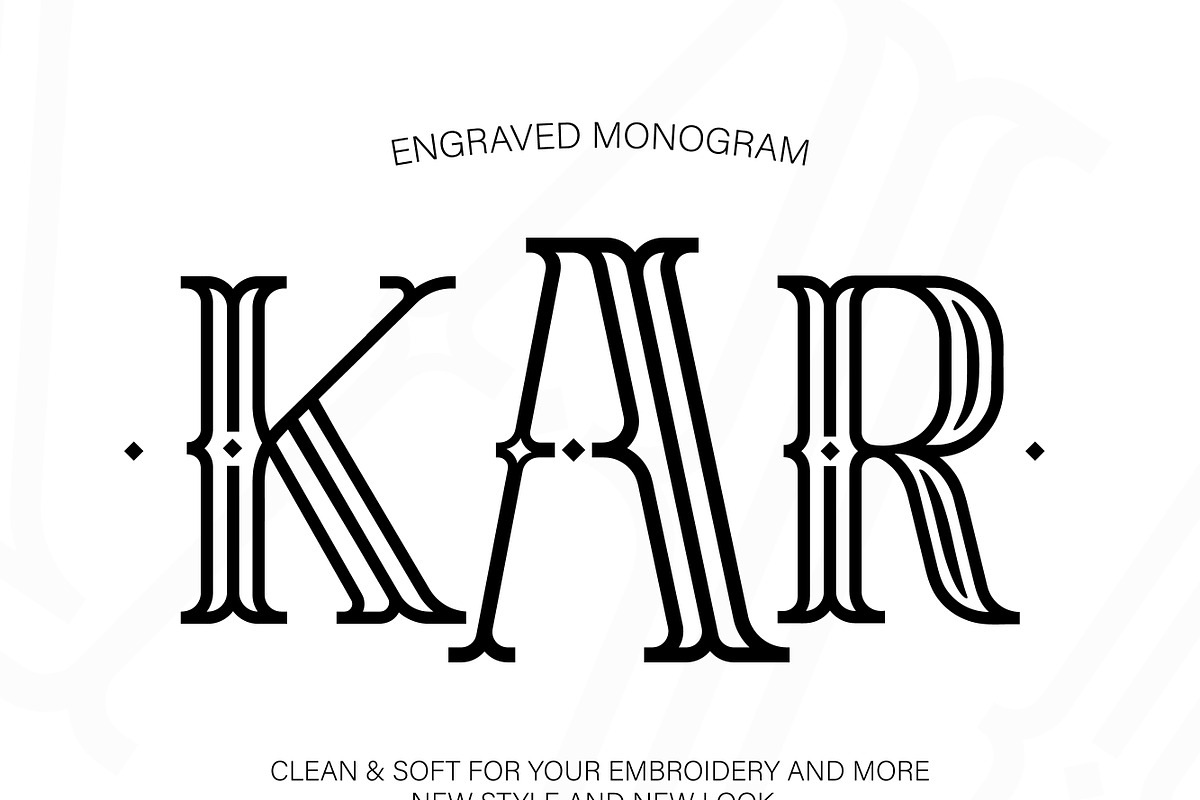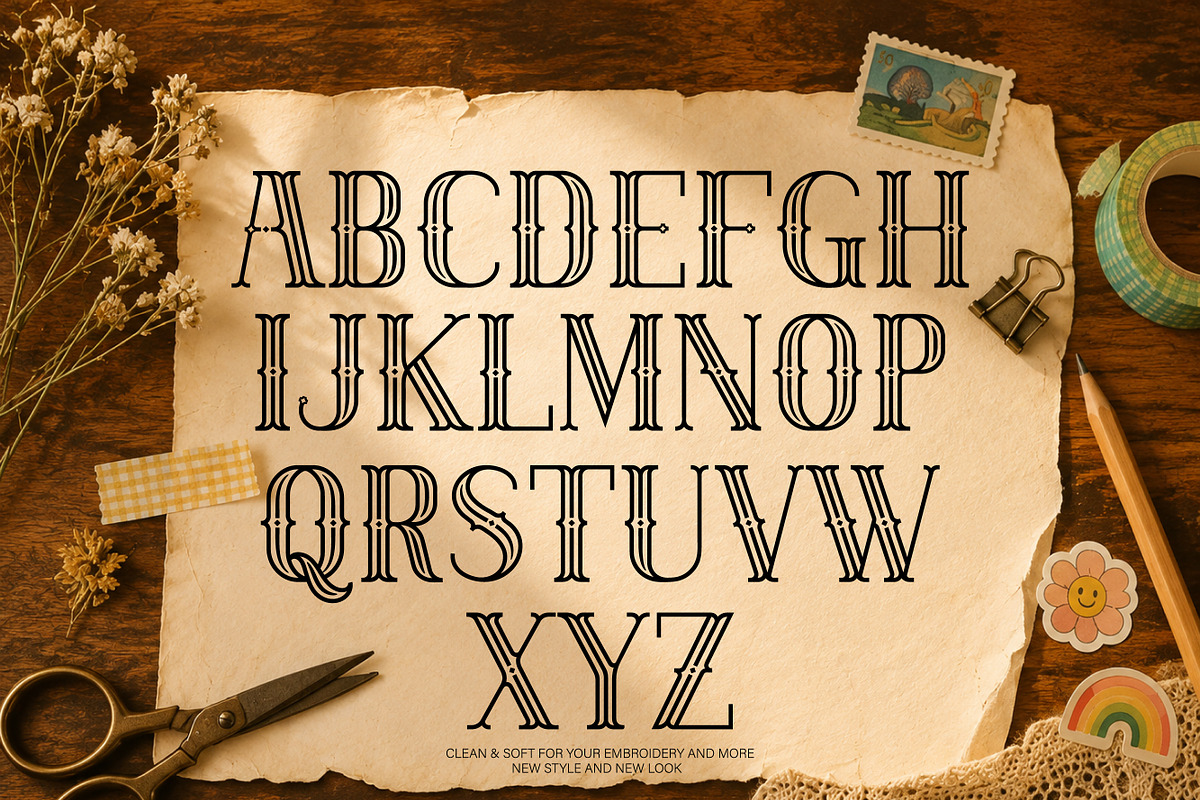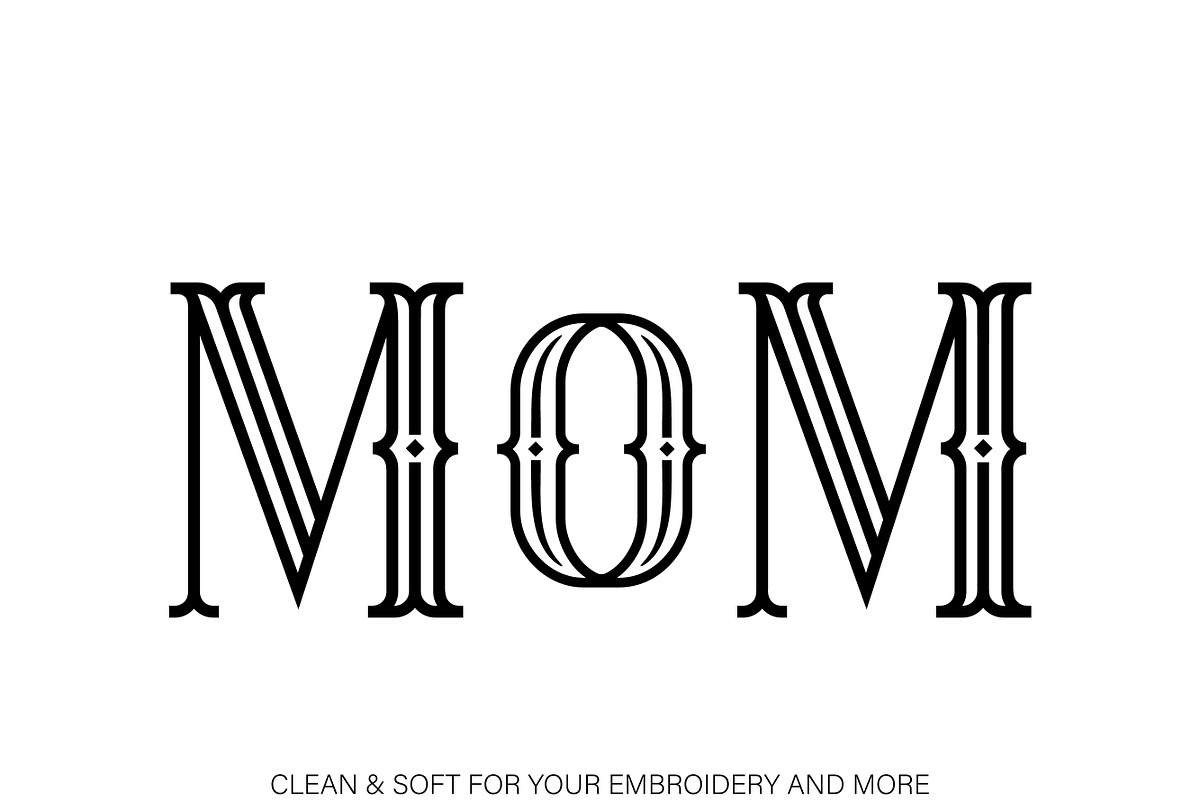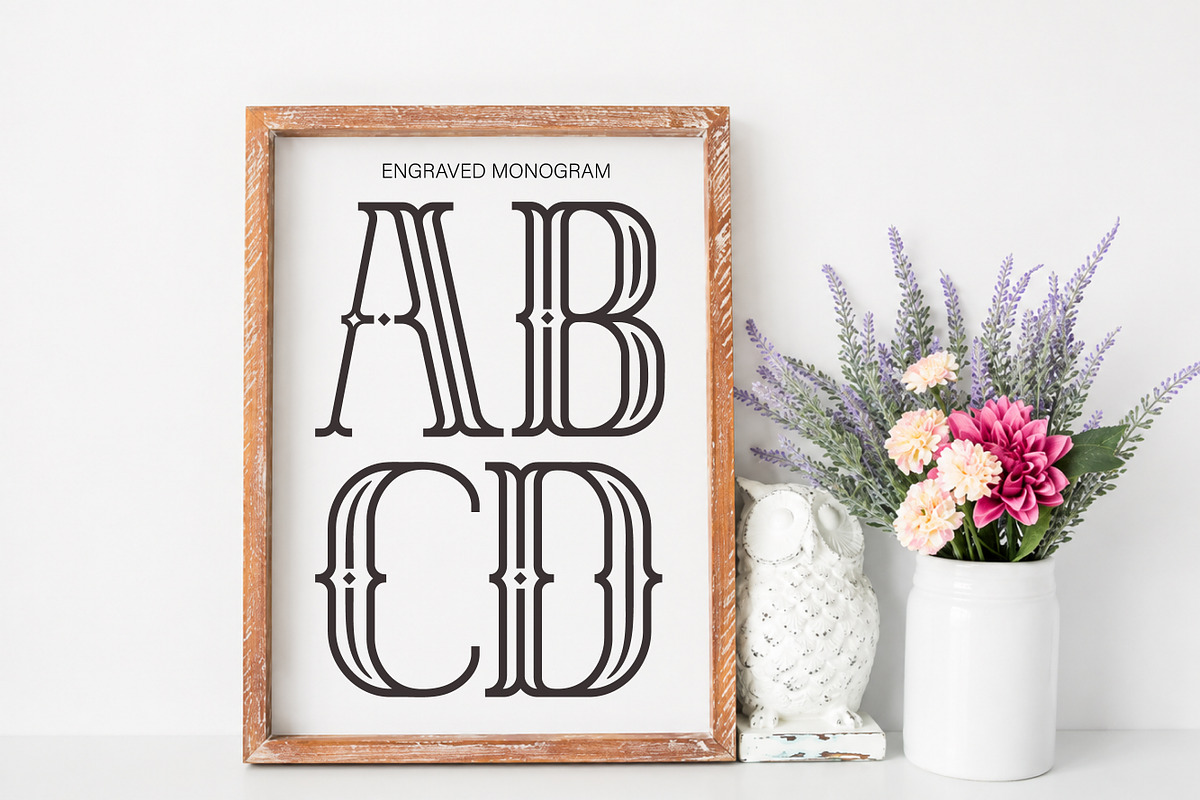
Engraved Monogram
A sophisticated monogram font typeface designed for personalization, branding, wedding projects, invitations, embroidery, and beautifully crafted handmade designs.